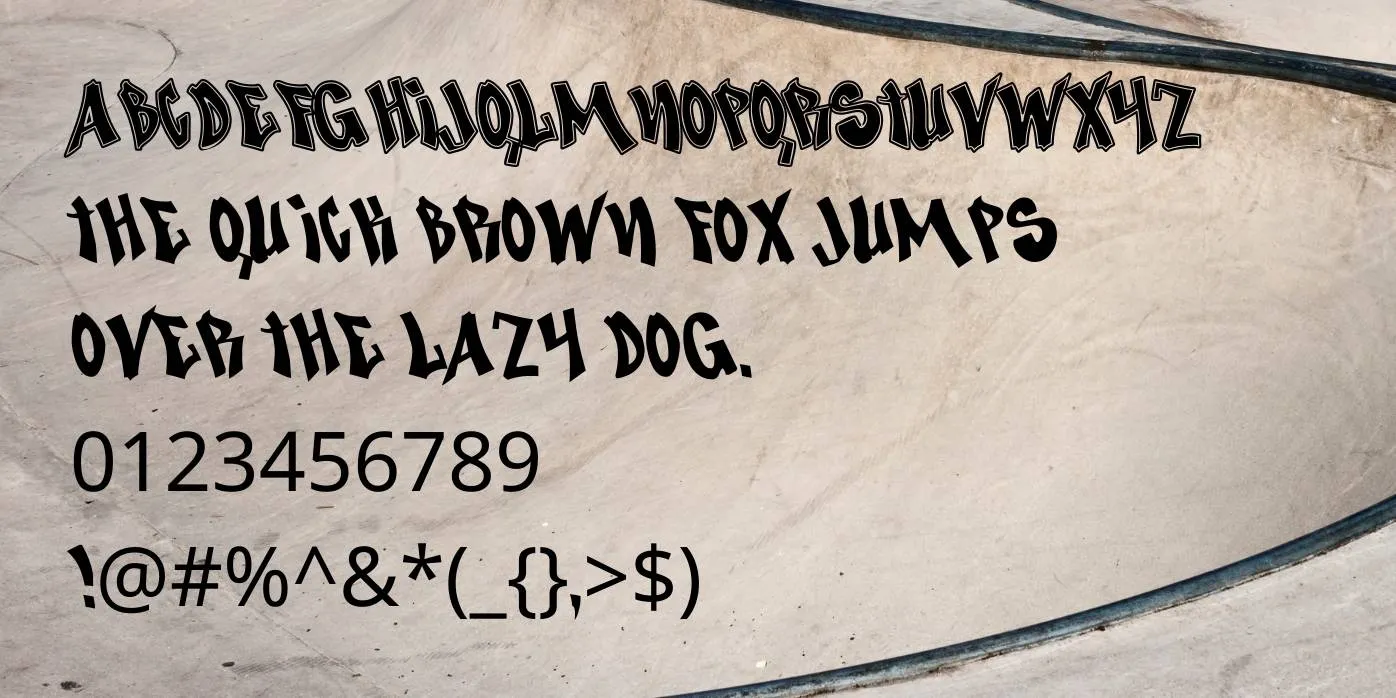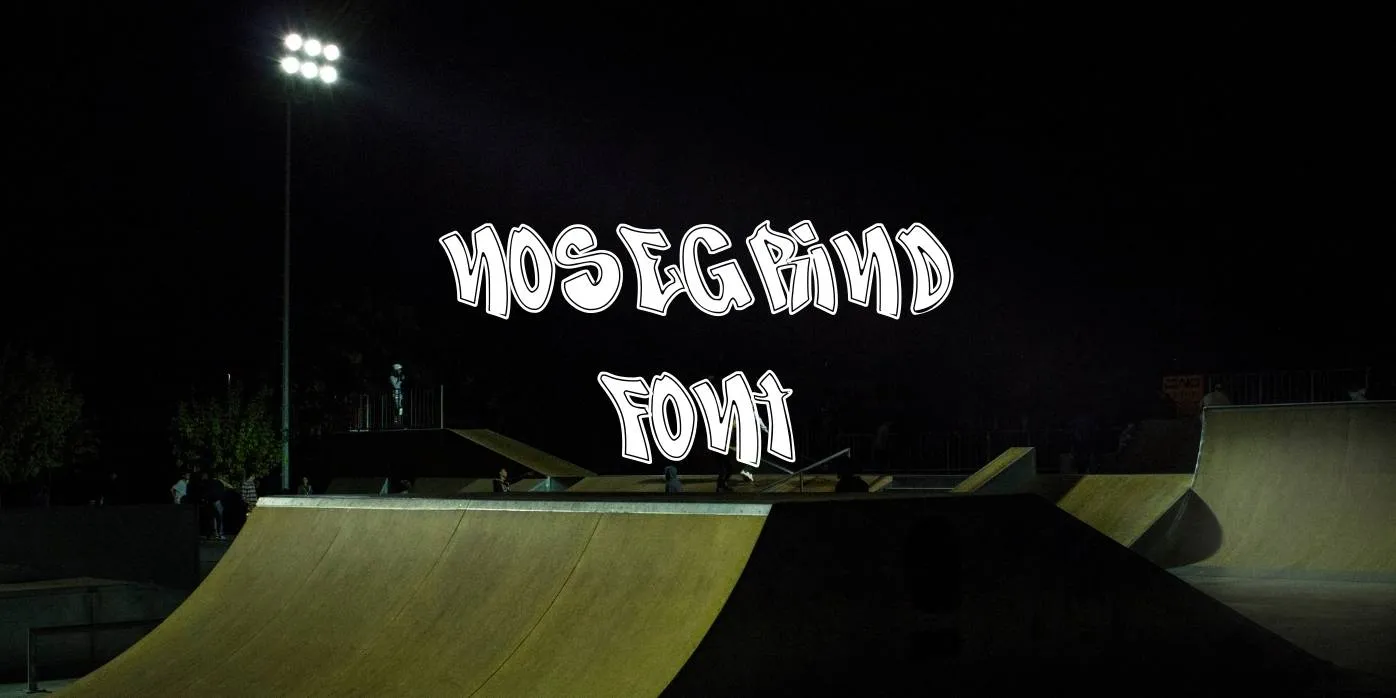
Nosegrind Font
Introducing a very beautiful and most unique Graffiti font that is Nosegrind Font. It belongs to Script Fonts. The designer of this eye-catchy font is “The Scriptorium”. The font family has TTF features and is free for personal use only.
It has many weights and many functions. It can support immense international languages. The font family seems like graffiti urban style and this is the reason for its popularity. It has many downloaders and many users that’s means it is very useful in designing sectors.
Nosegrind font has many different styles that contain Uppercase and Lowercase Letters, creative symbols, special characters, Numbers / Numerals, Unique Alternates, and some other special characters. It font also has Truetype features and is available for personal operation only.